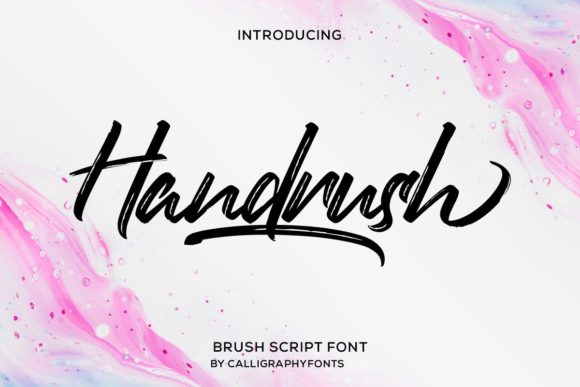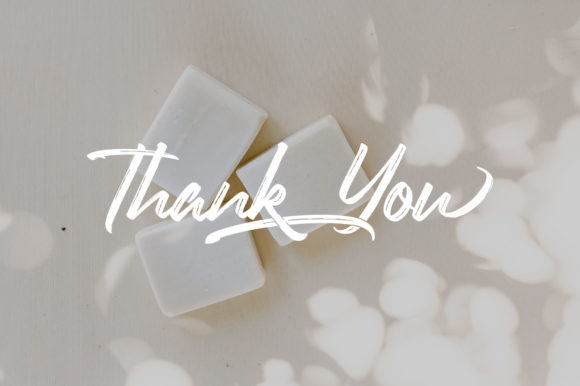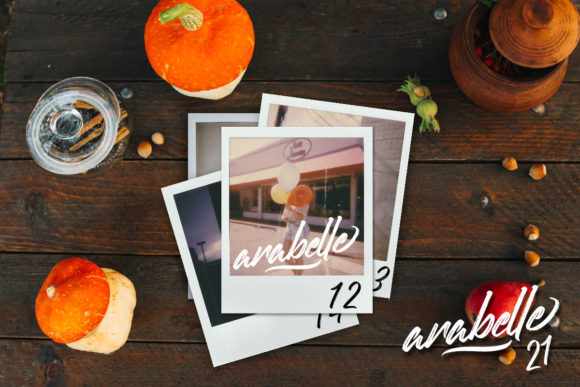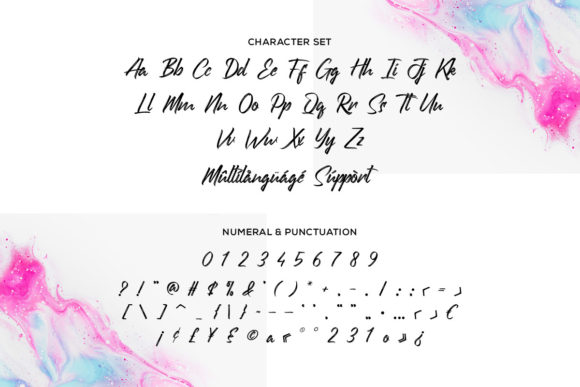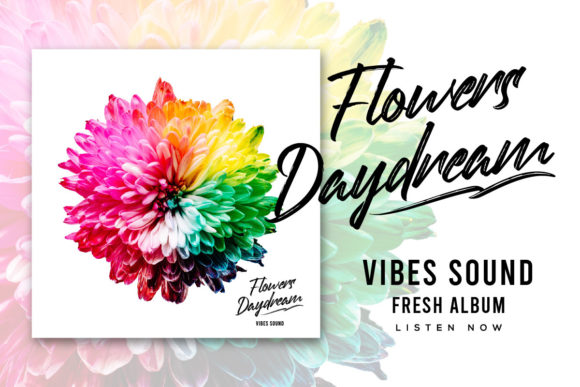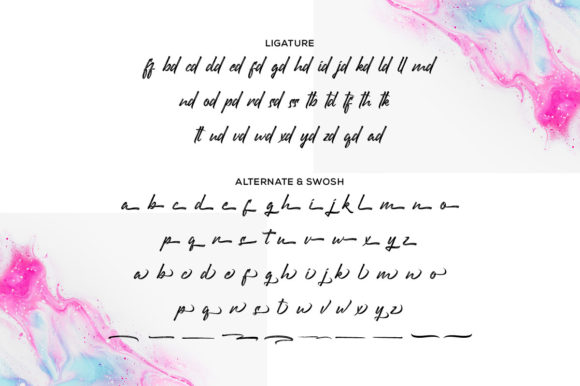
About Handrush Font
Handrush is a lovely and cursive brushed script font. This font is PUA encoded which means you can access all of the glyphs and swashes with ease!
It is defined by smooth curves and is perfect for fashion branding or editorial designs.